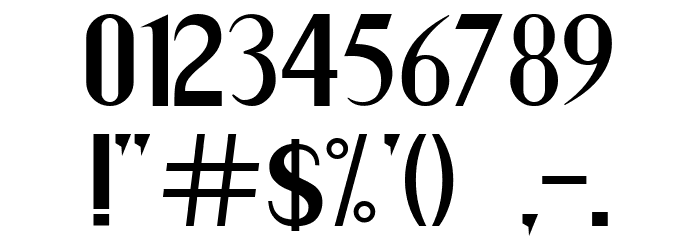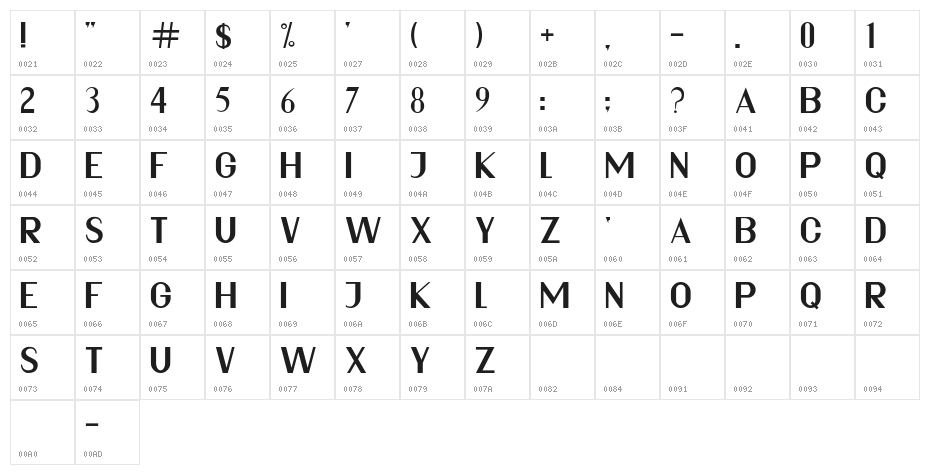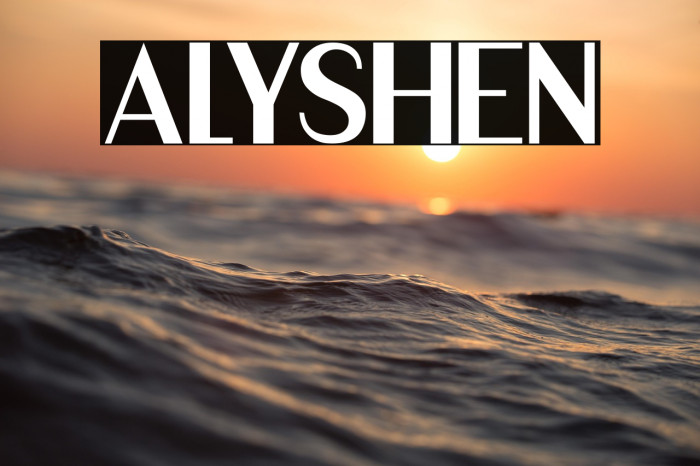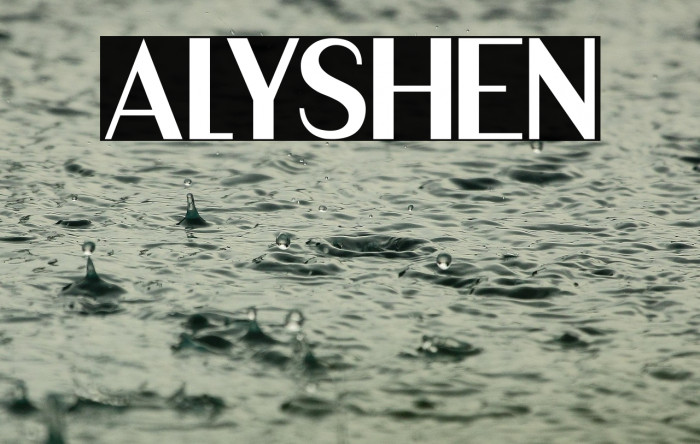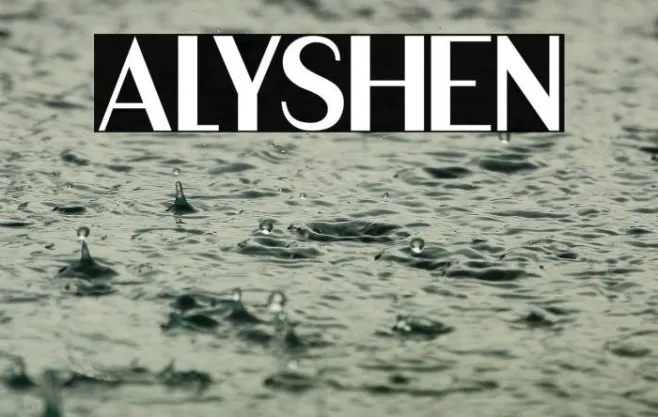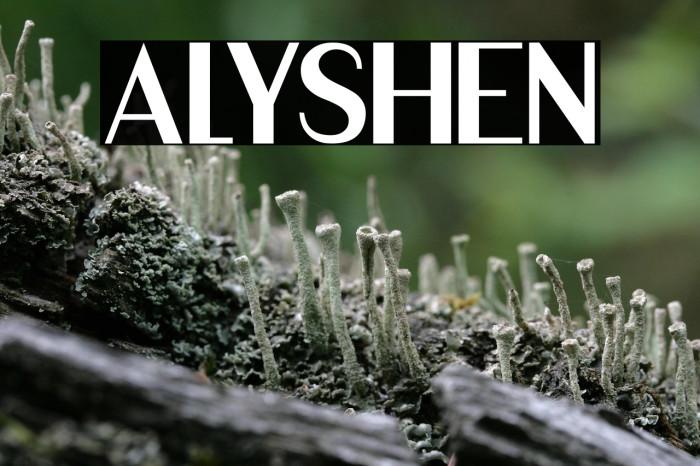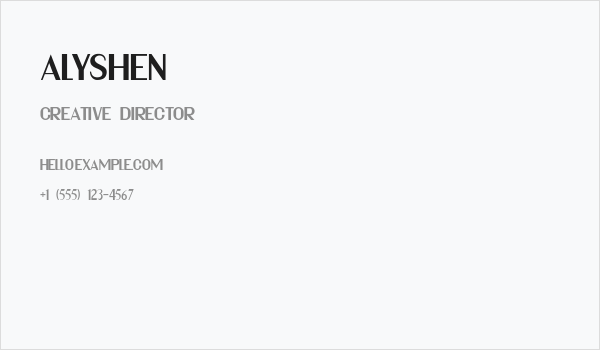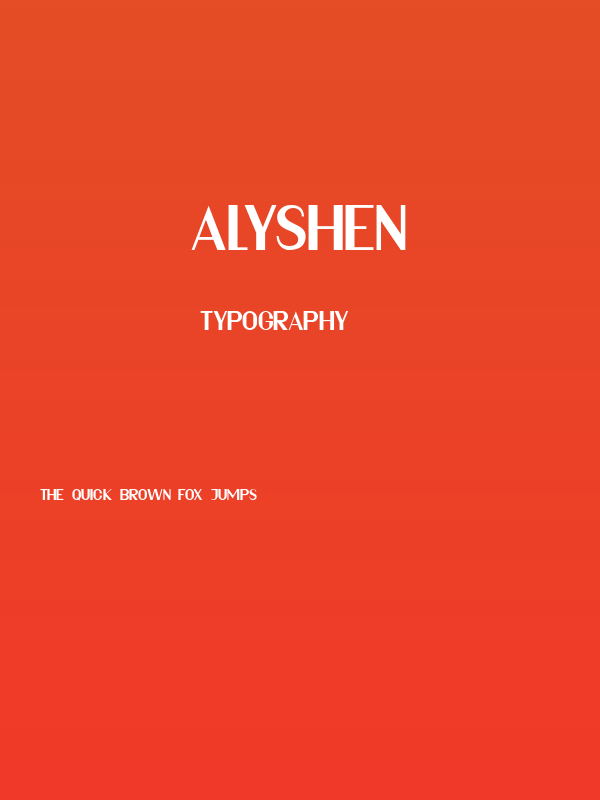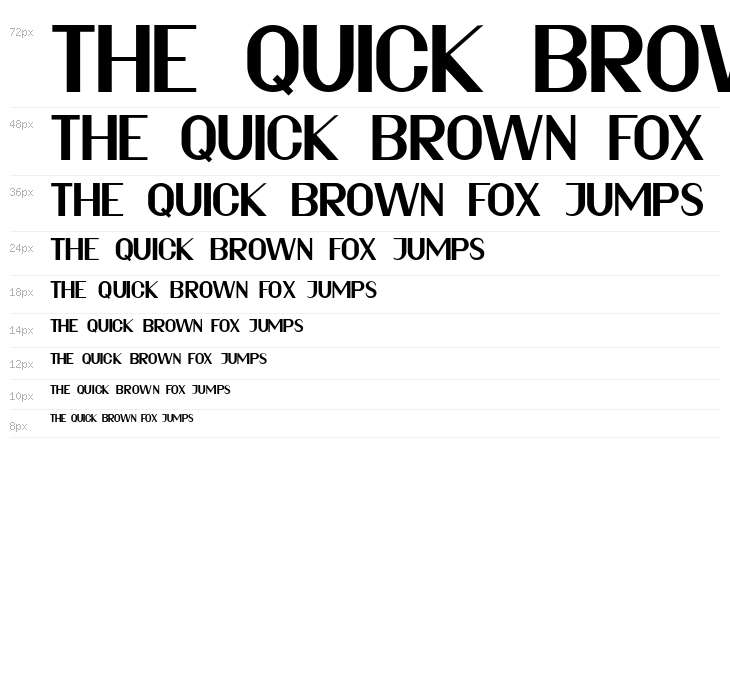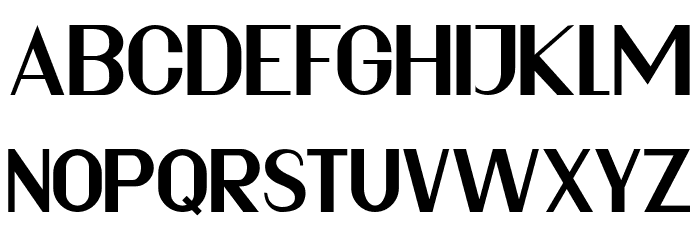
ALYSHEN Font
ALYSHEN Description
This font features a bold and striking design with high contrast between thick and thin strokes, giving it a modern and dynamic appearance. The uppercase letters are particularly distinctive, with sharp angles and a geometric influence that adds a sense of precision and sophistication. The lowercase letters maintain a consistent style, complementing the uppercase with their clean lines and balanced proportions. The numerals are equally bold, ensuring readability and impact. Special characters are thoughtfully designed to match the overall aesthetic, making this font versatile for various applications.
| Proposed Projects | Ideal for branding, advertising, headlines, and editorial design where a strong visual impact is desired. |